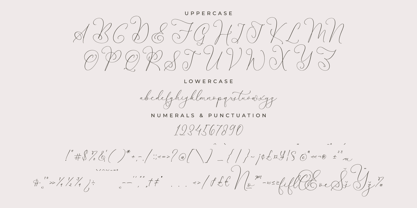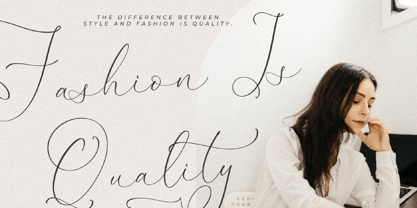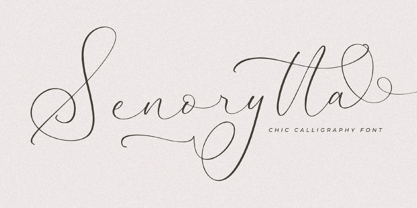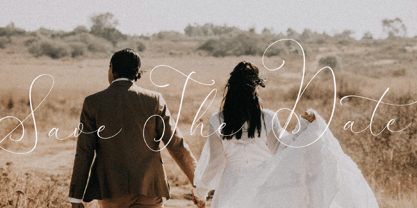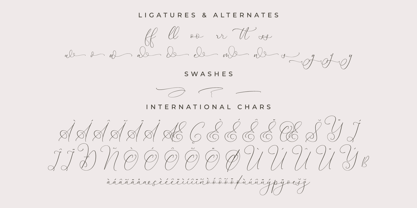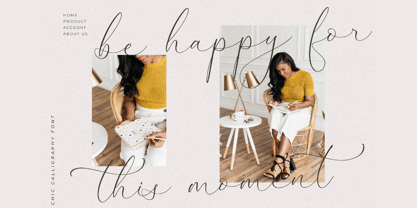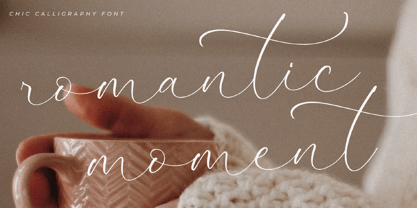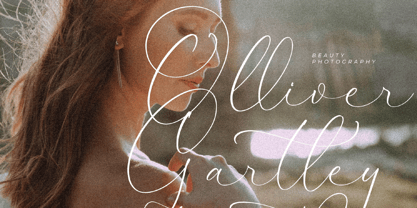
Senorytta
The Senorytta Font Family was designed by Heru Utama Putra and published by Letterena Studios. Senorytta contains 2 styles and family package options. More about this family
Senorytta is a chic and luxurious handwritten font with a unique style and modern look.
This typeface is perfect for an elegant & luxury logo, book or movie title design, fashion brand, magazine, clothes, lettering, quotes, and so much more.